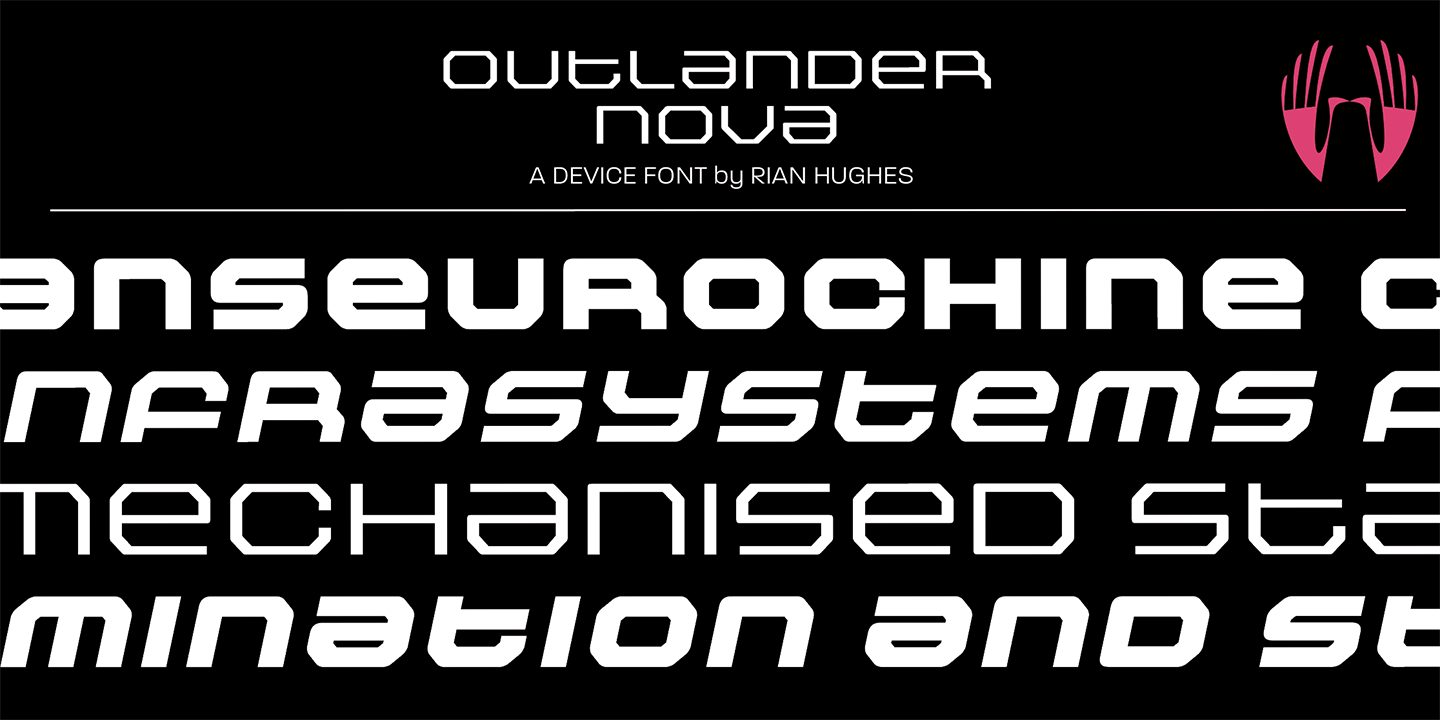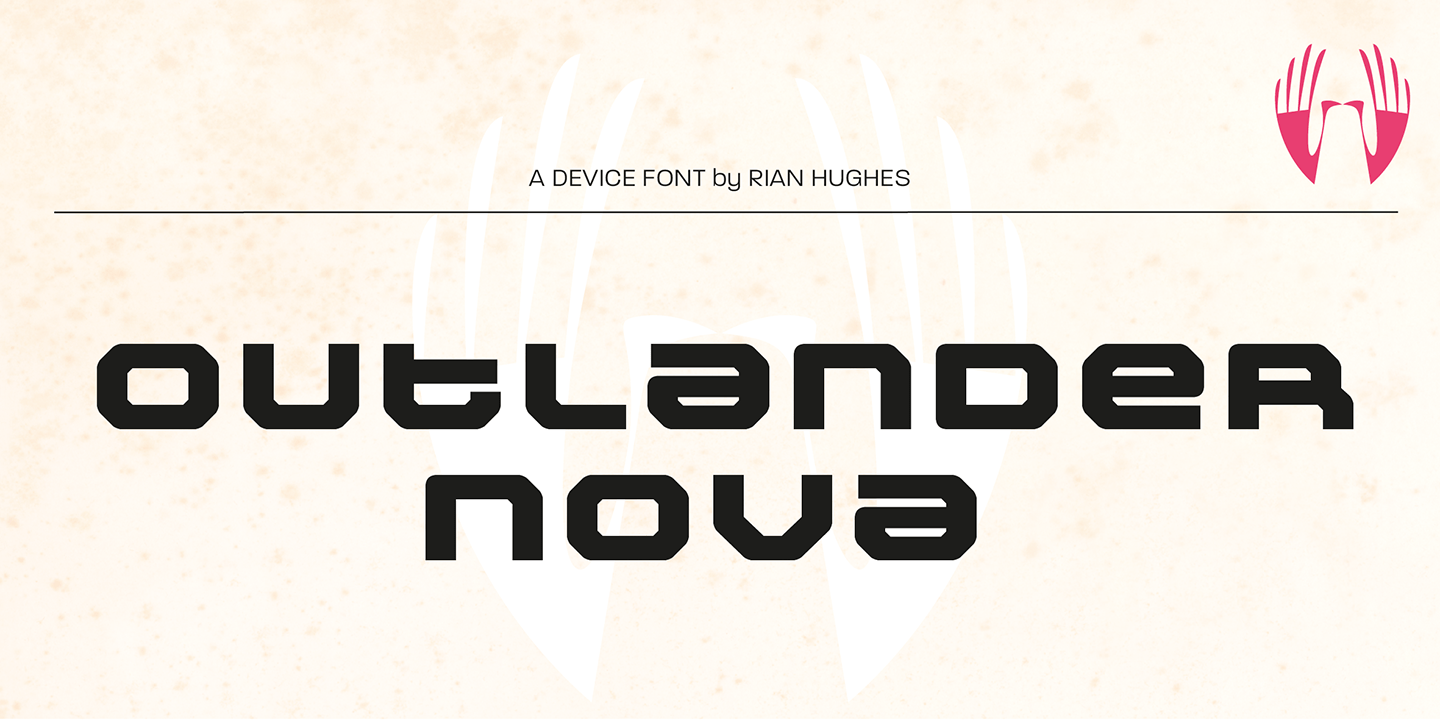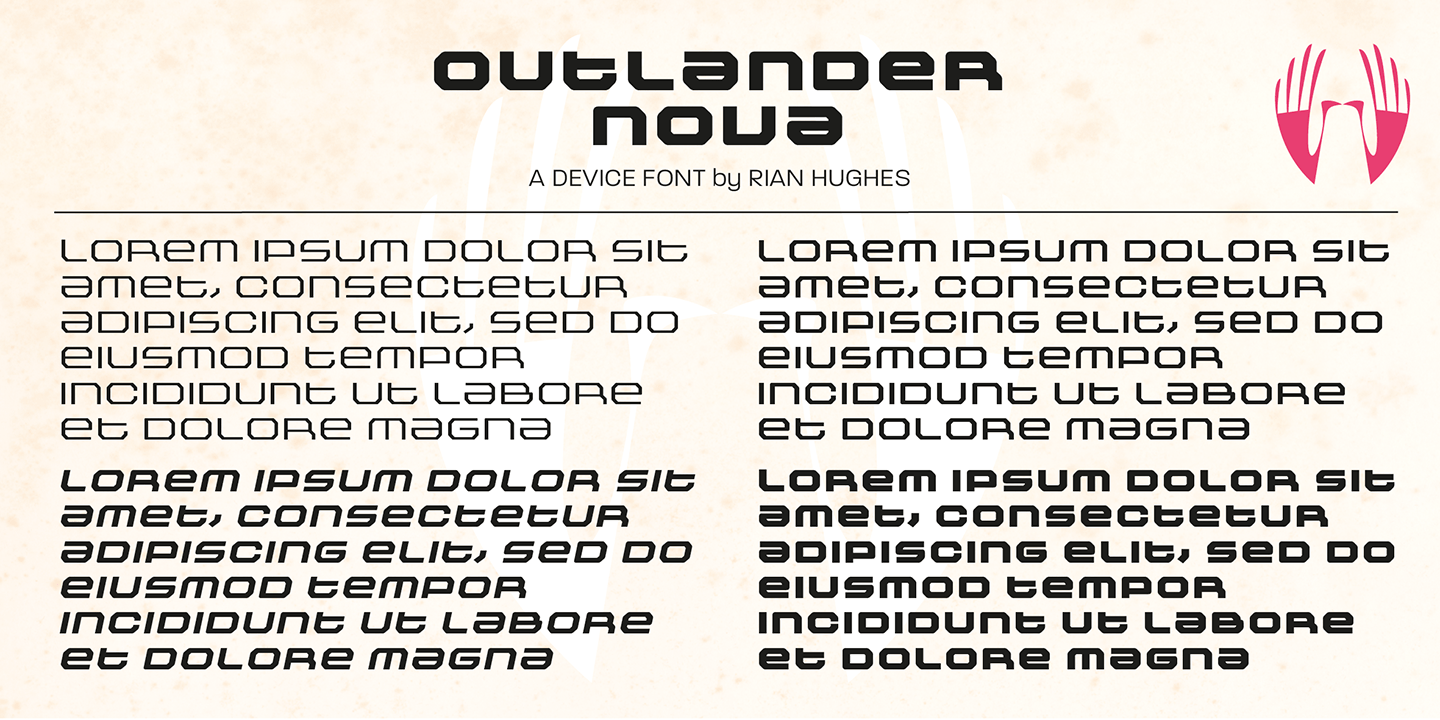
Outlander Nova
Outlander Nova is a reworking of Outlander, and adds uppercase characters in addition to the previously available unicase versions.
This new version also provides italics for the first time.